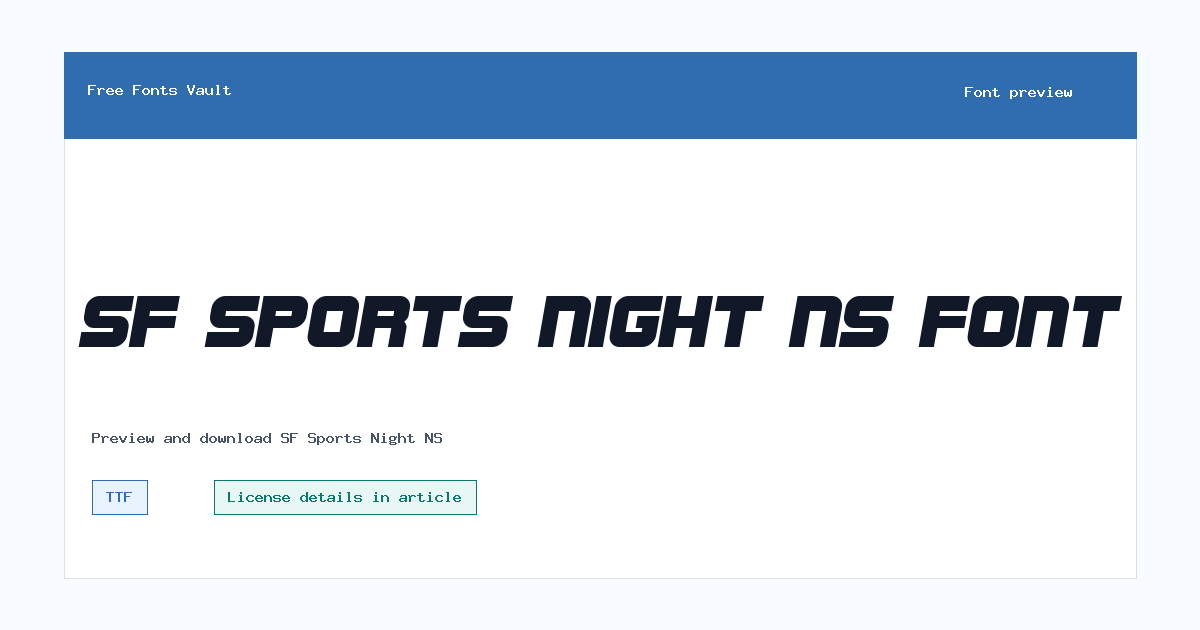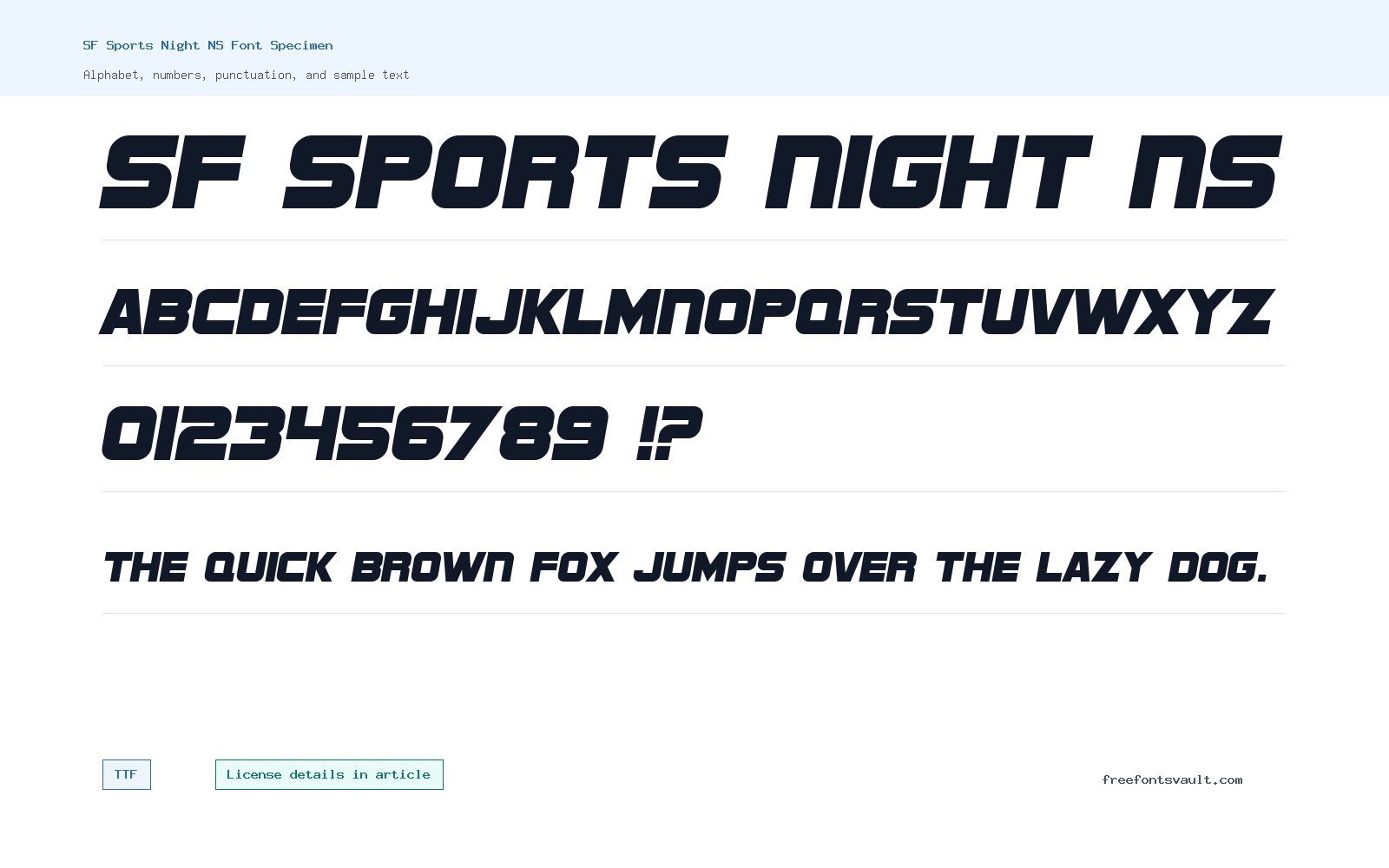
SF Sports Night NS
- Designer ShyWedge
- Foundry ShyFonts
SF Sports Night NS is a sports-themed TTF display font credited to ShyWedge and ShyFonts, made for short, energetic titles rather than quiet body copy.
About SF Sports Night NS Font
SF Sports Night NS fits the kind of layout where the words need to feel like part of the event. Team names, match posters, tournament banners, fan graphics, score-style headings, and social thumbnails are natural places to test it. It brings a sports identity quickly, so it works best when the surrounding design is simple enough to let the title carry the energy.
- Sports-focused TTF display font
- Credited to ShyWedge, with ShyFonts listed as foundry
- Strong fit for team names, event titles, and fan graphics
- Useful for testing short uppercase or title-case sports wording
- Best paired with a simpler font for detailed information
- Sports posters, match-day banners, and tournament graphics
- Team-name lettering, fan artwork, and social media titles
- Scoreboard-inspired headings and event flyer text
- Thumbnails, covers, and high-energy display lines
- Pairing with a clean sans-serif for schedules and captions
SF Sports Night NS is credited to ShyWedge, with ShyFonts listed as the foundry and a ShyFonts URL attached in the cleaned metadata.
Use SF Sports Night NS for short high-impact text. Test team names, scores, dates, and abbreviations in the preview, then keep detailed copy in a simpler companion font for readability.
What kind of font is SF Sports Night NS?
It is a sports-style display font for bold titles, team graphics, event posters, and short headline text.
Who made SF Sports Night NS?
The font is credited to ShyWedge, with ShyFonts listed as the foundry.
Is it good for paragraphs?
No, it is better for short display text. Pair it with a plain readable font for body copy and event details.